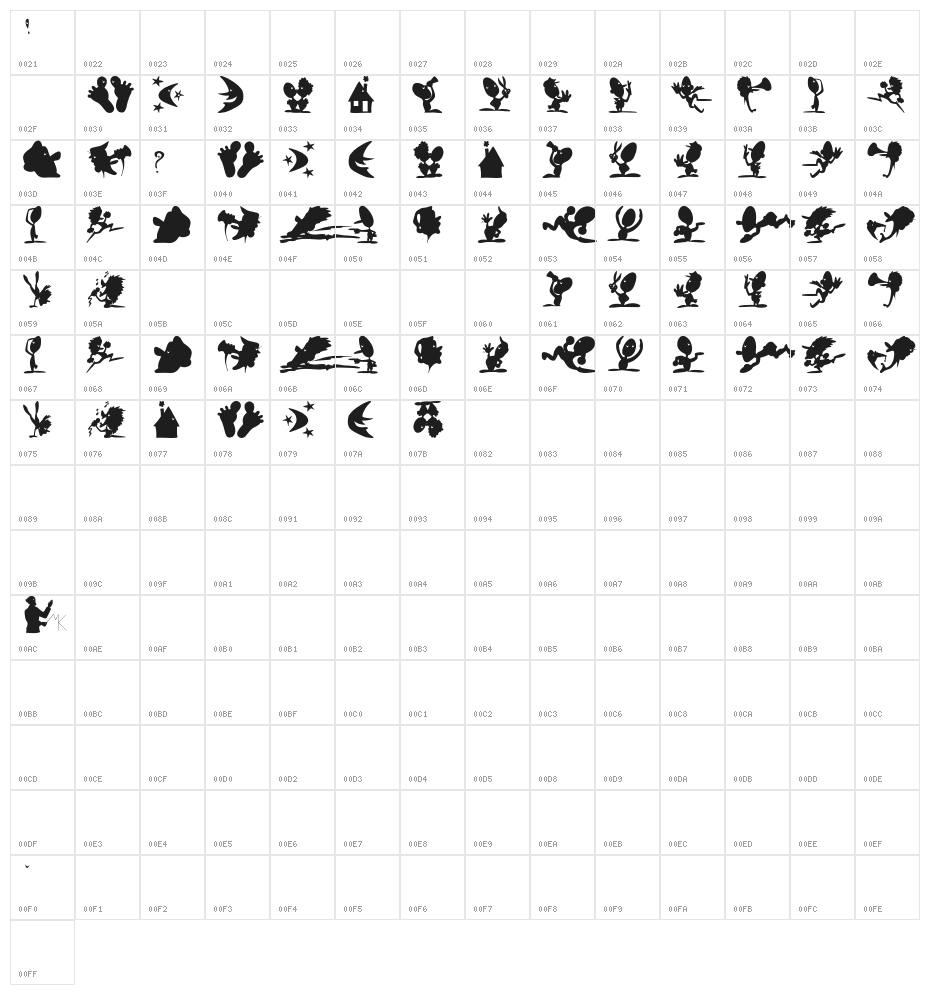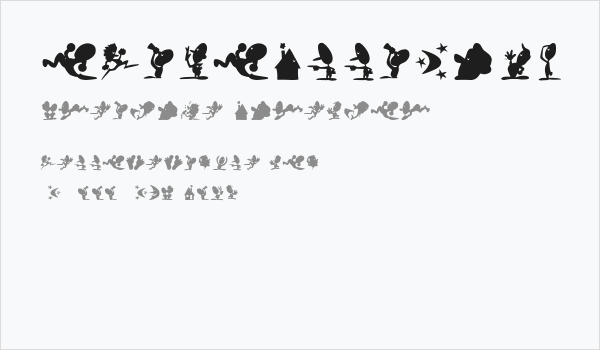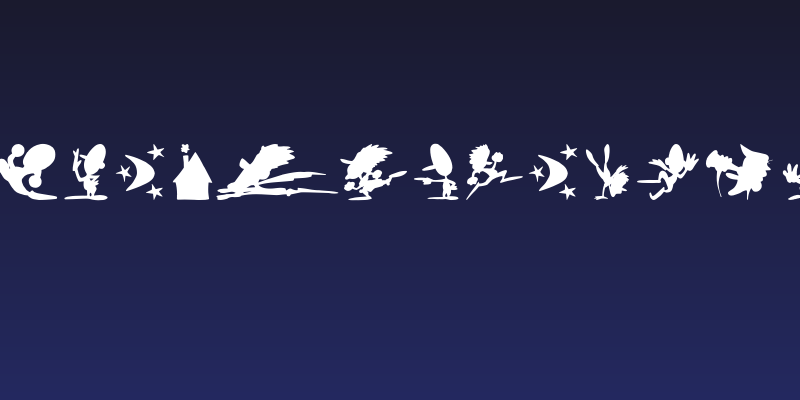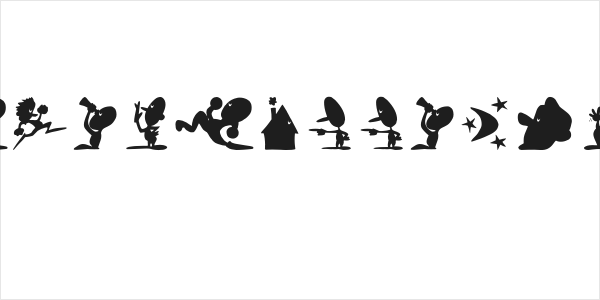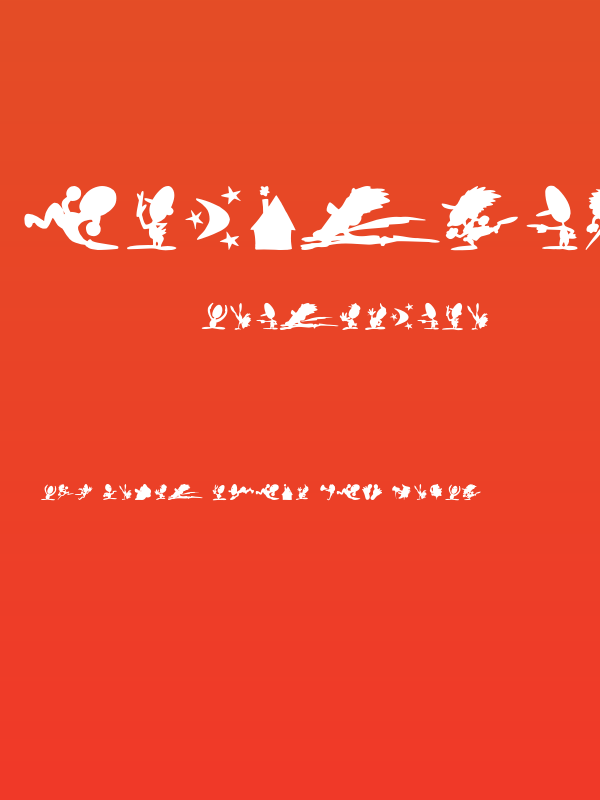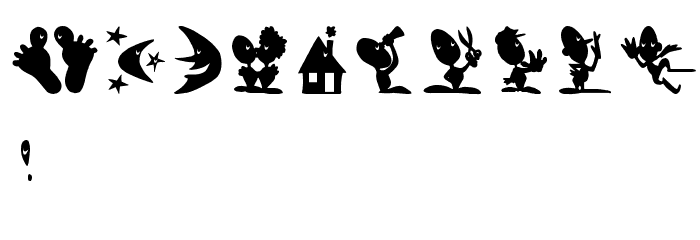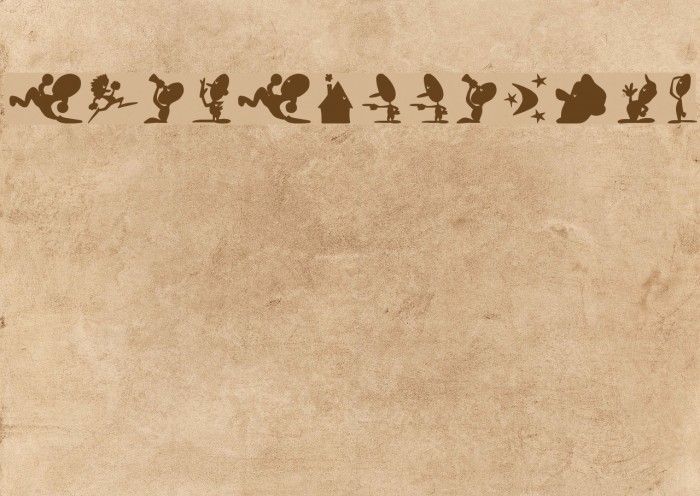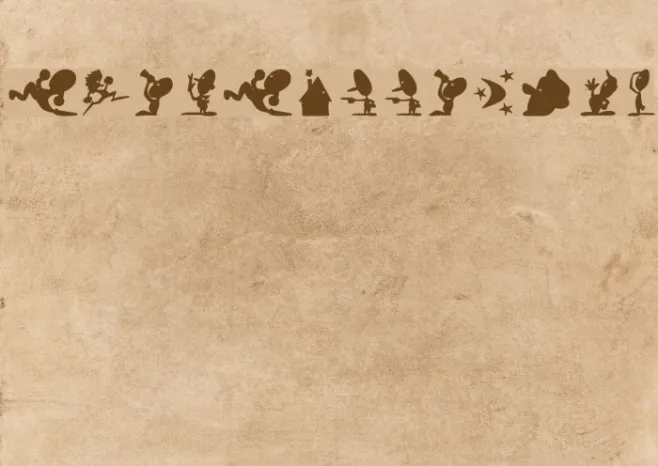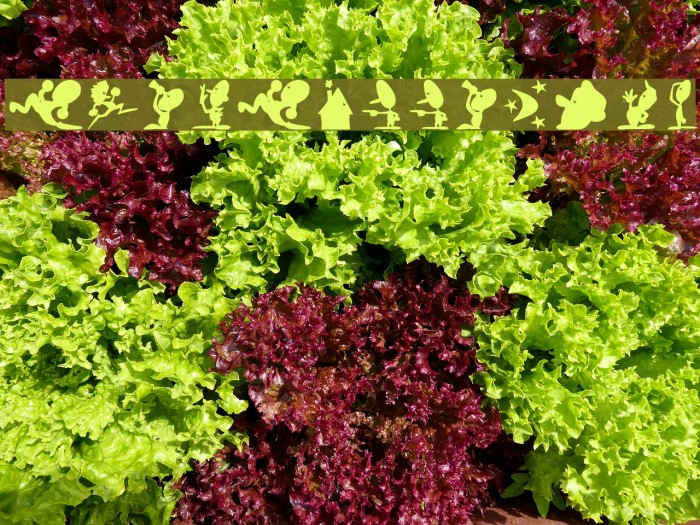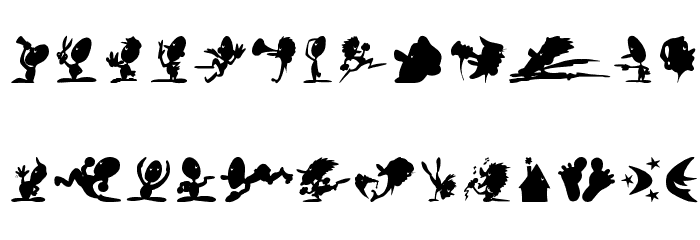
ShadowPlaying Font
ShadowPlaying Description
This is not a valid font. The image consists of various playful and whimsical shadow-like figures and shapes, such as stars, moons, and abstract characters. These elements are more illustrative and decorative rather than typographic, lacking the standard alphabetic and numeric characters typically found in a font set.
| Use Case | Illustrations, Decorative designs |
| Proposed Projects | This set of illustrations could be used for children's book illustrations, playful graphic designs, or themed party invitations. |